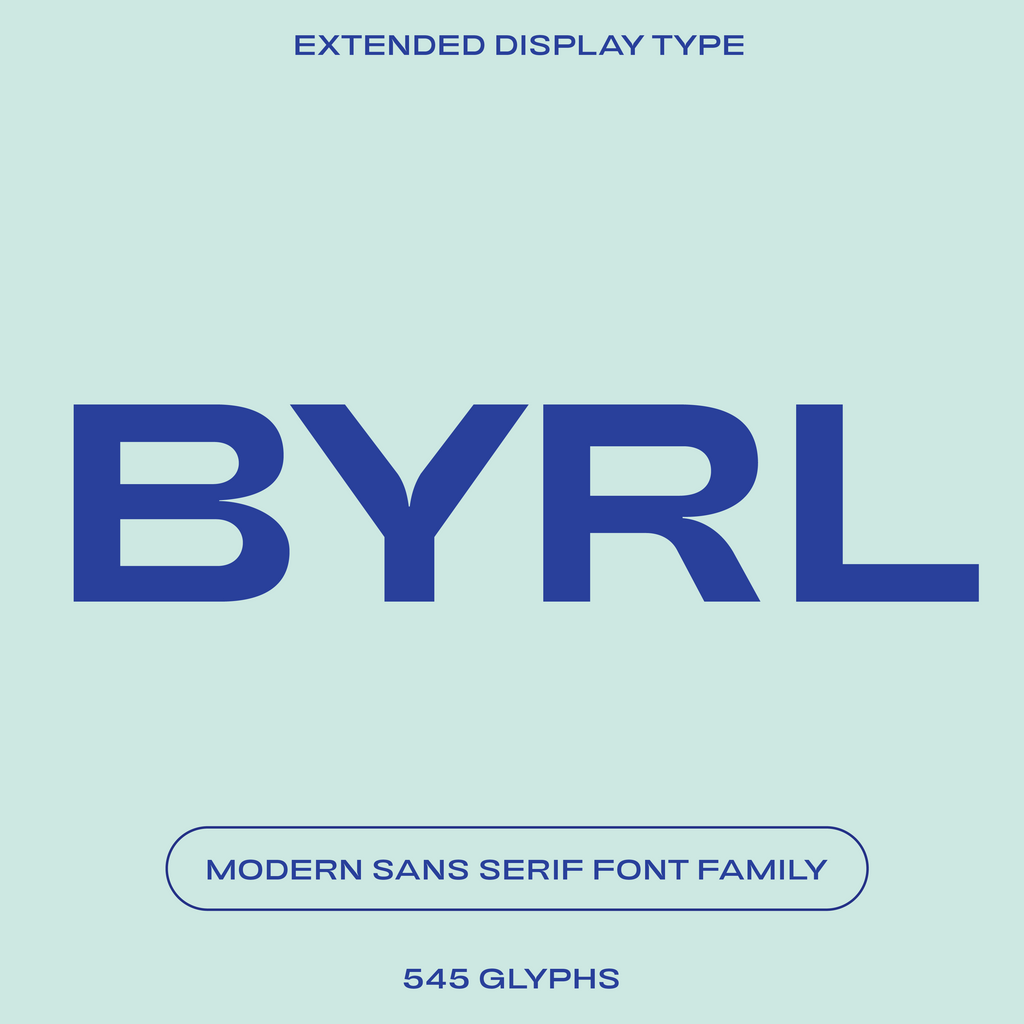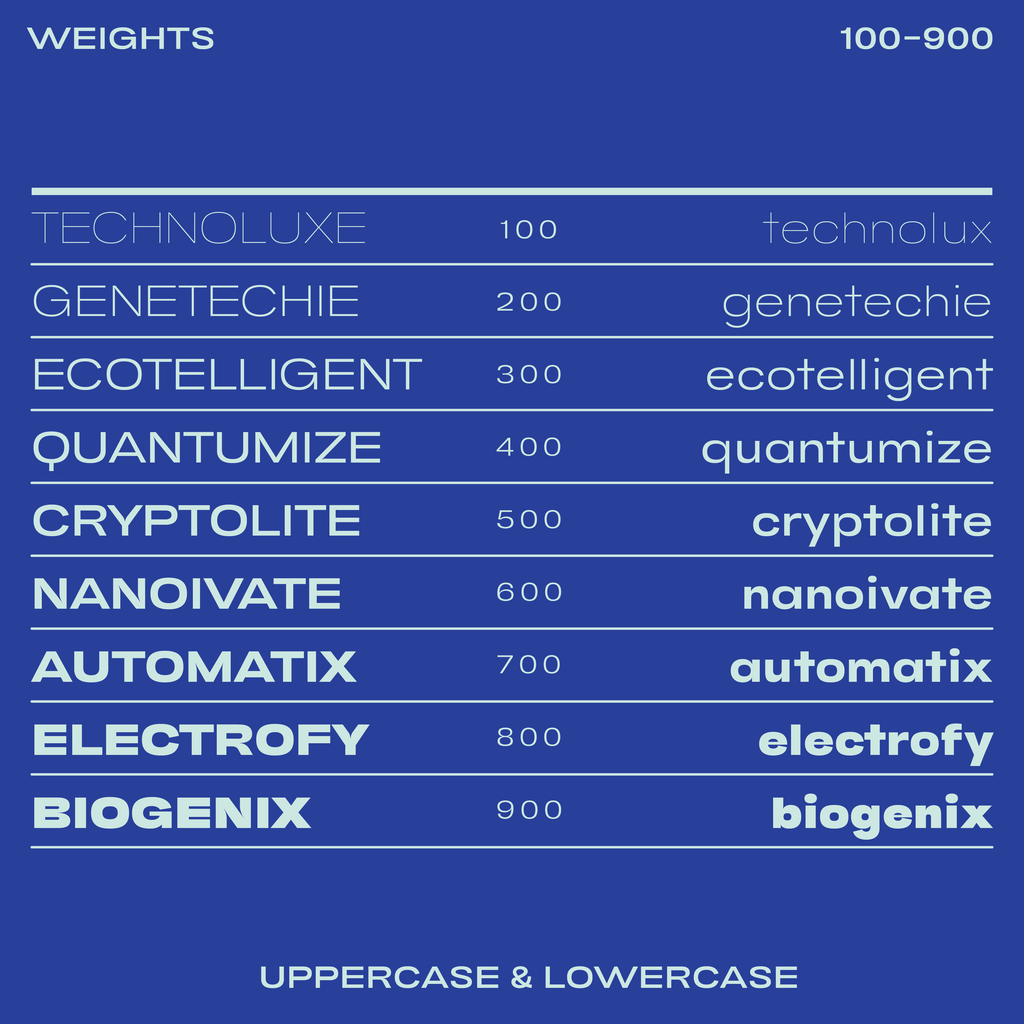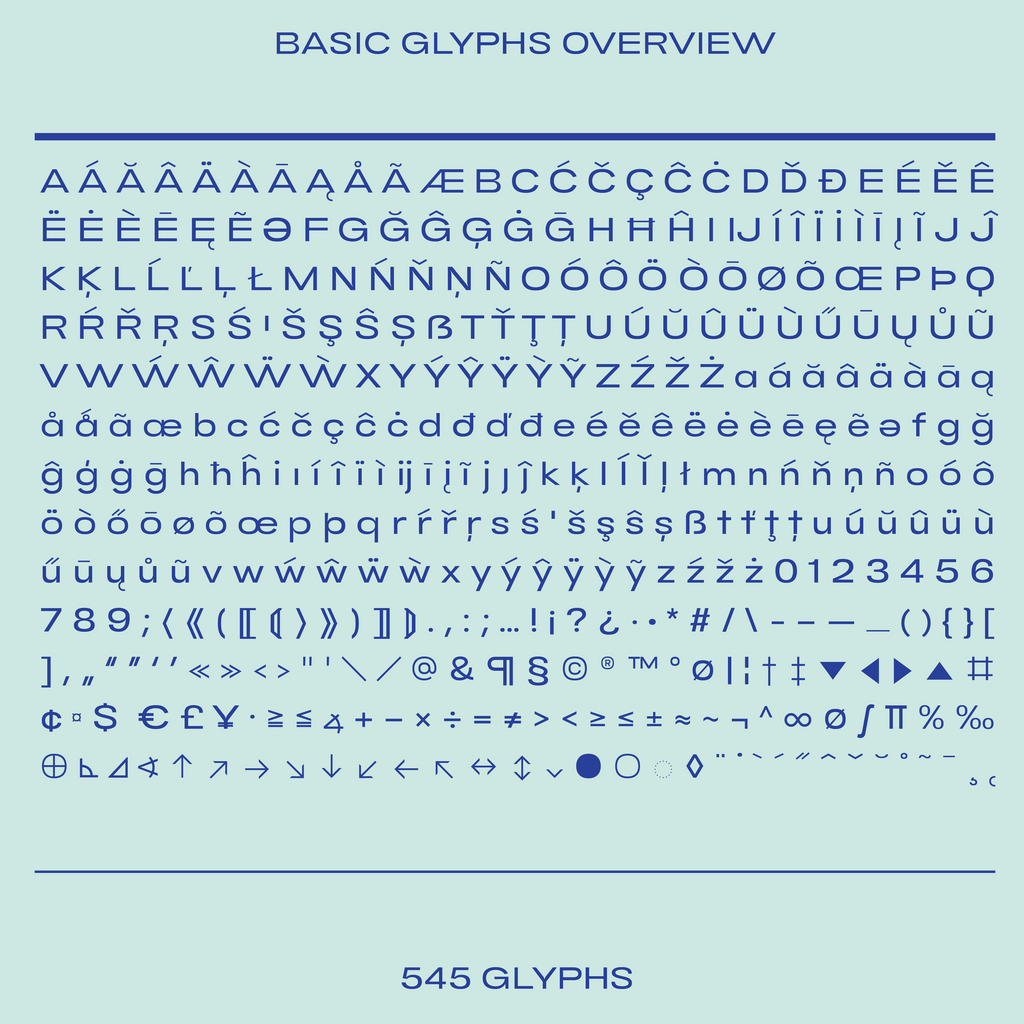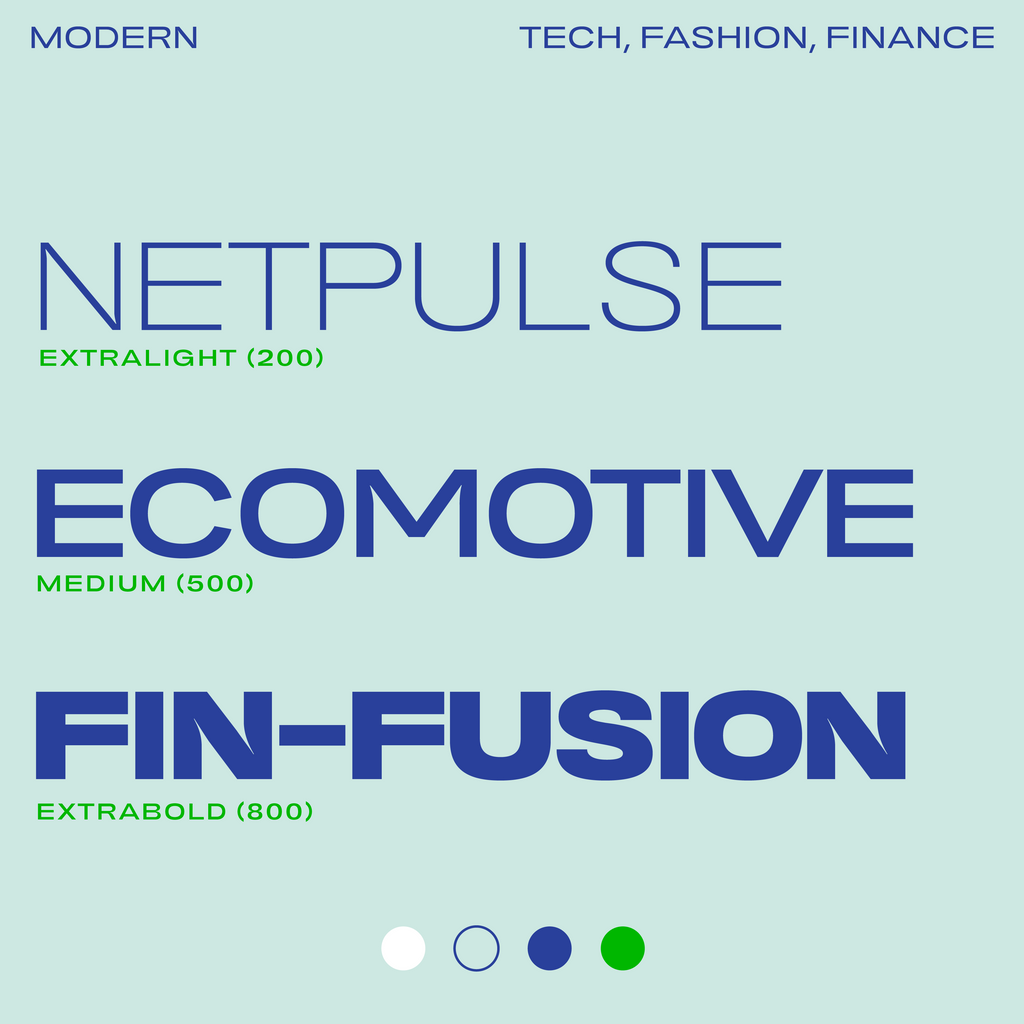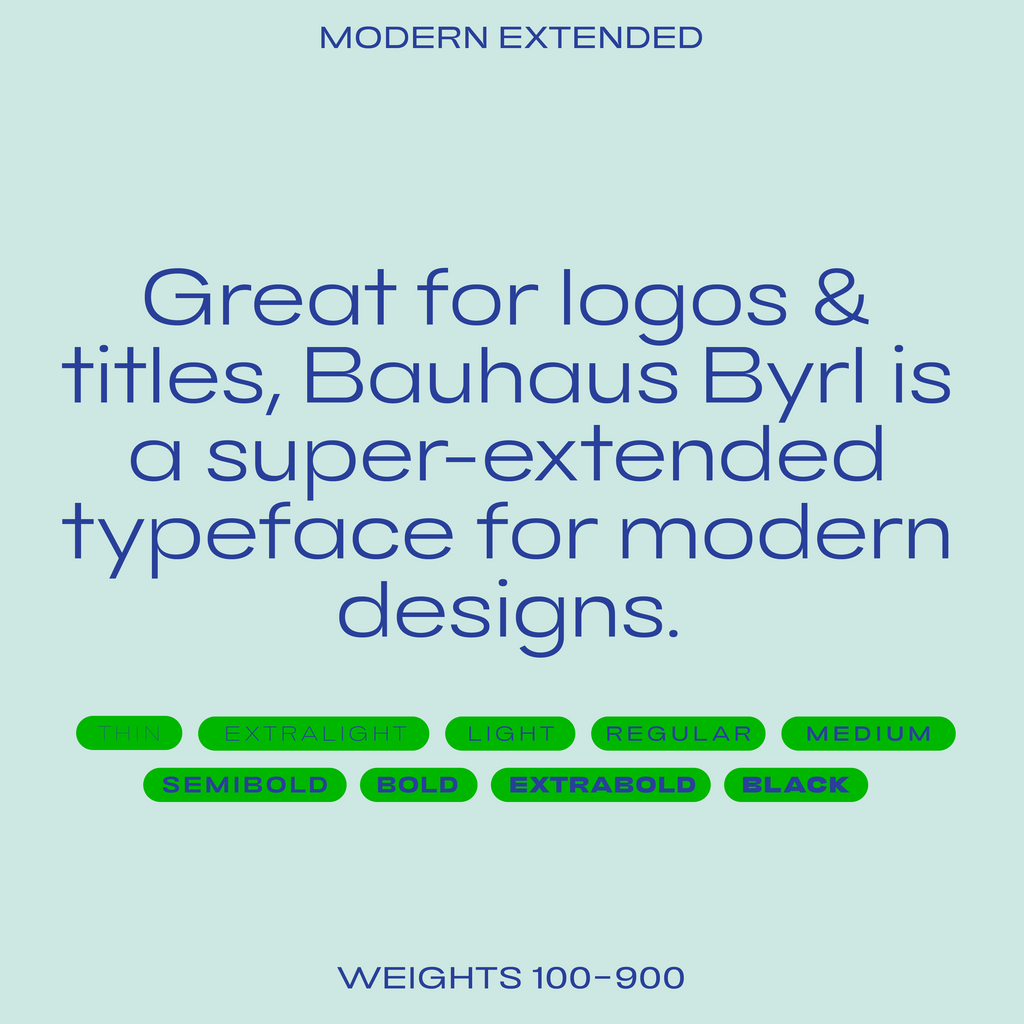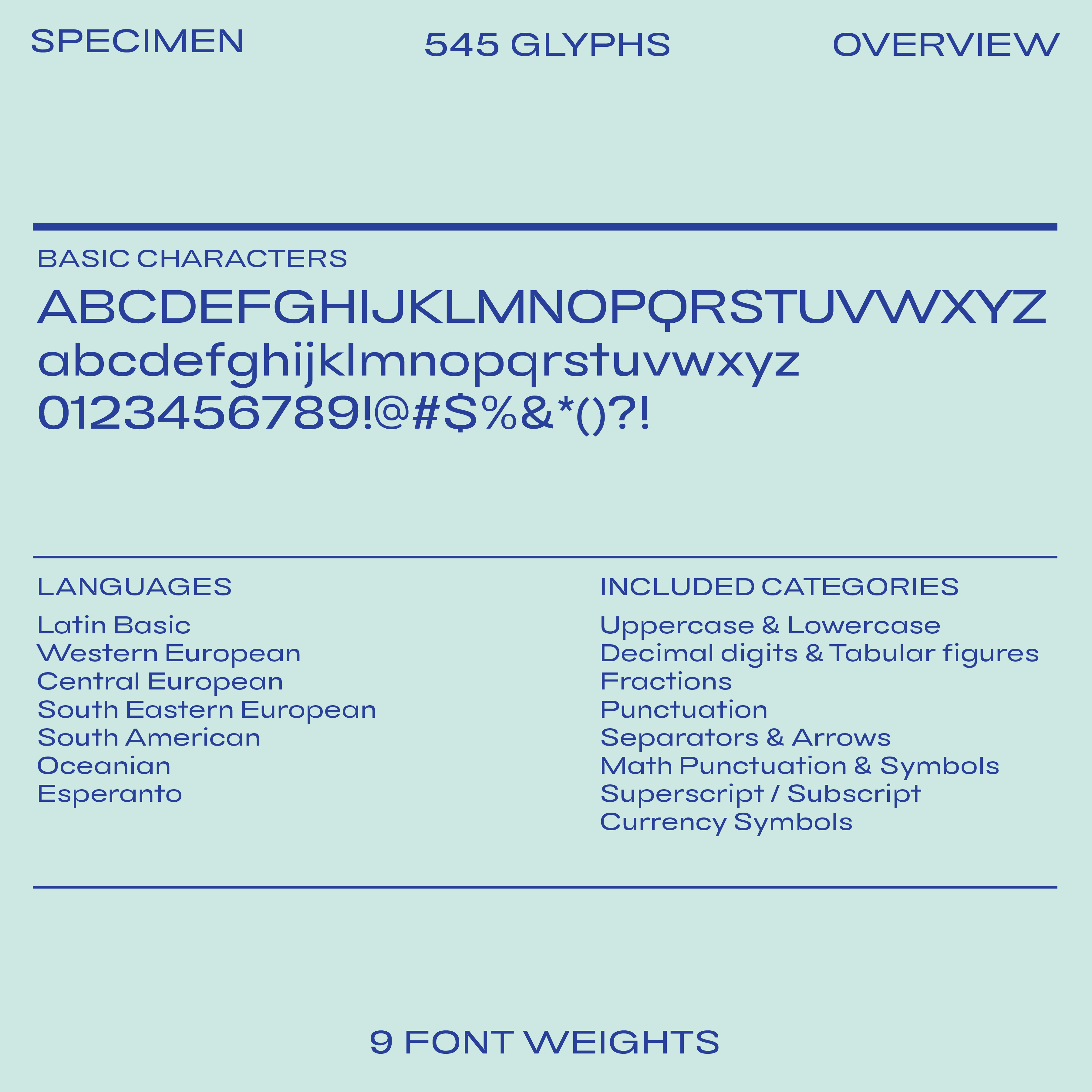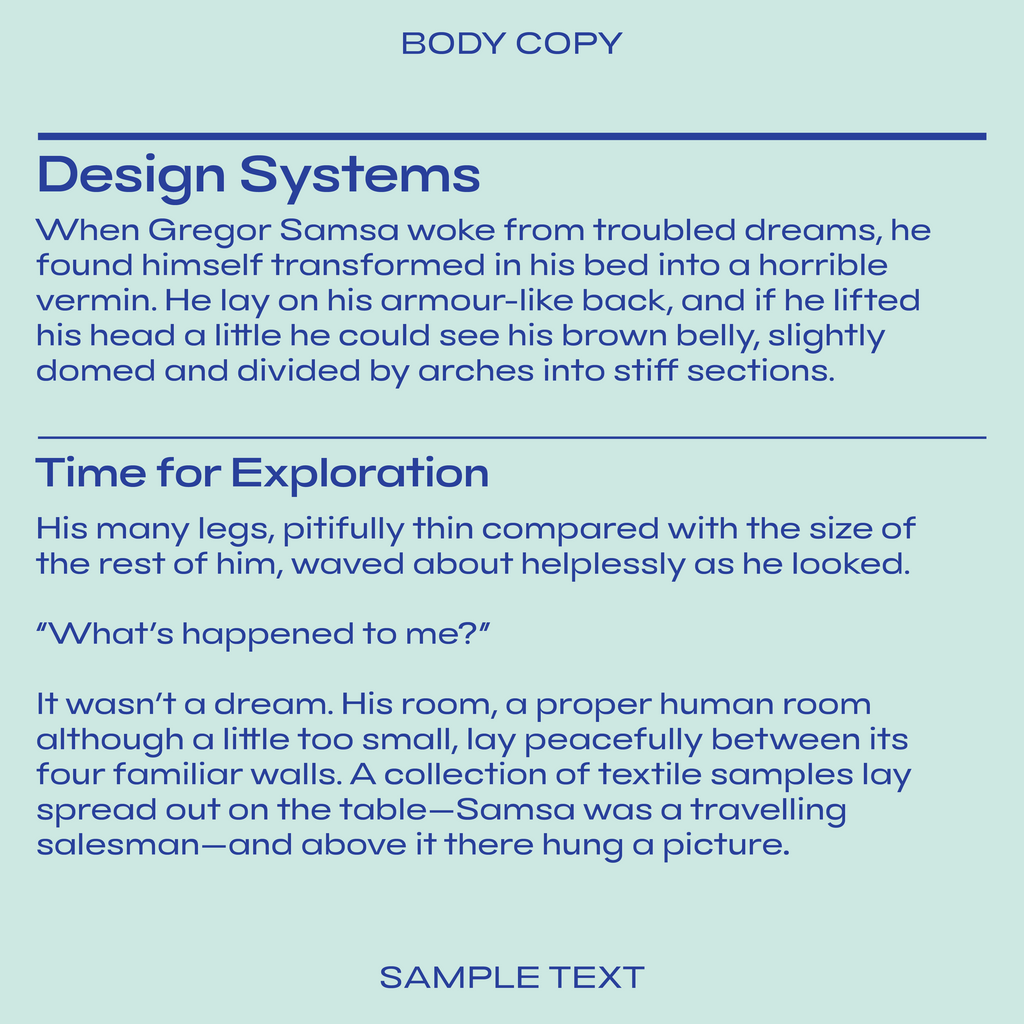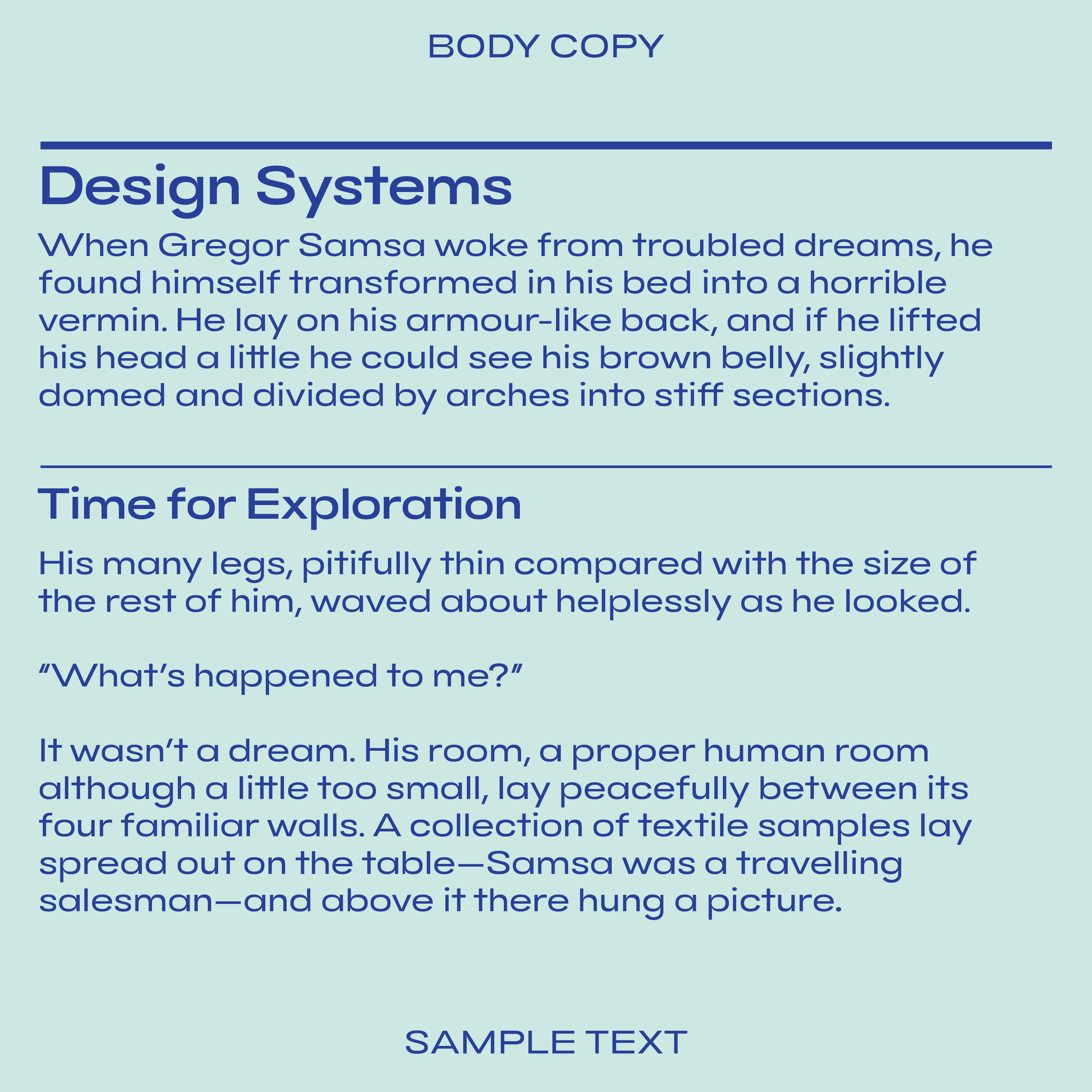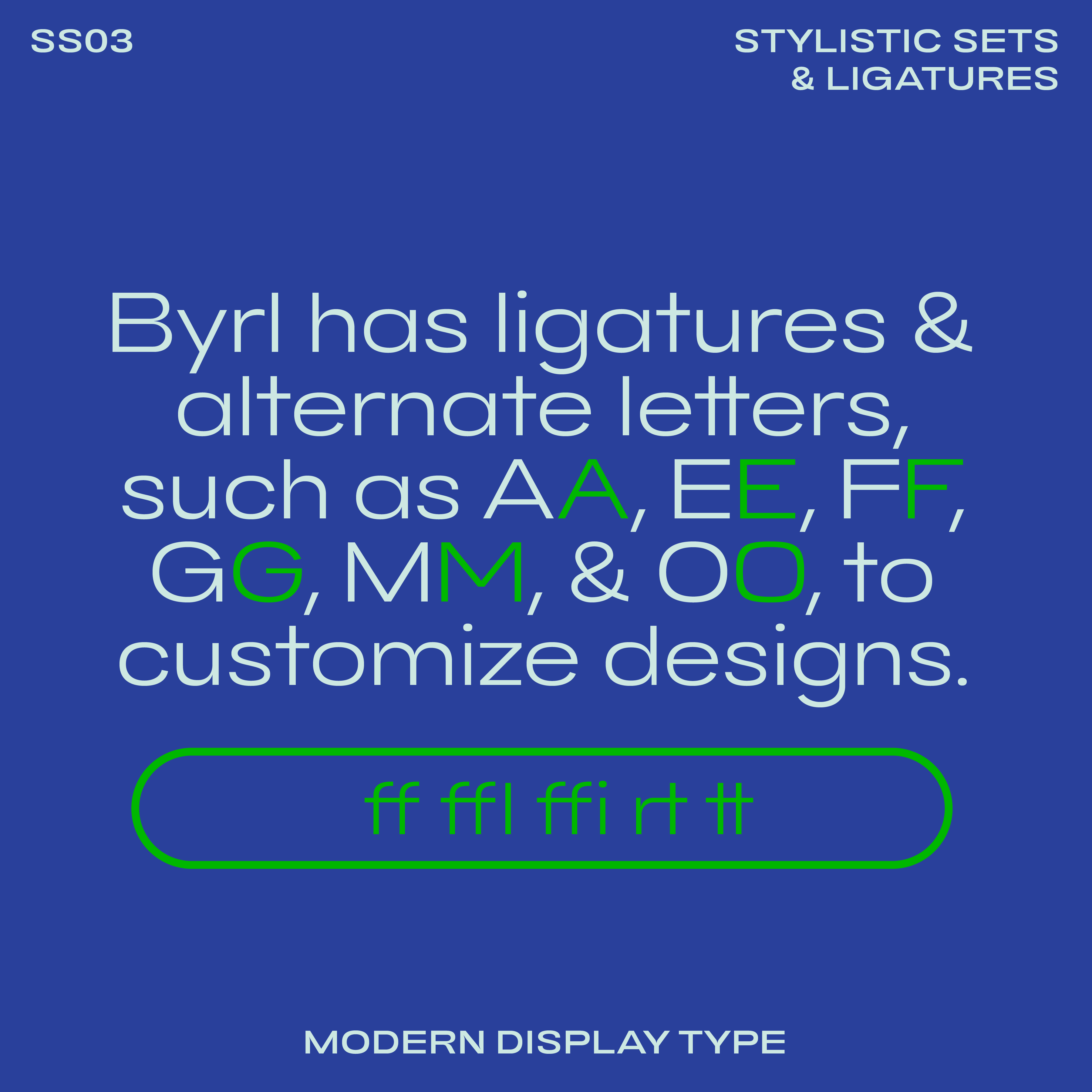
Wide geometric capitals, an o wider than it is tall, and ascenders that stop at cap height.
In Thin a title looks light and airy; toward Black a single word fills the line. Logos and headings for tech, fashion and sports brands.
Wide and modern, with ink traps.
Great for logos, titles and text snippets, Byrl is an extended typeface for modern designs. Byrl has many ligatures & alternate letters, such as 2 options for A, E, F, G, M, and O, to customize designs. Available in 9 font weights and as a full family. Full family includes variable font.
As a wide sans-serif, Byrl fits tech products, magazine mastheads, fashion labels and minimal medical branding.
Byrl · variable, 100 to 900
Wide geometric capitals, an o wider than it is tall, and ascenders that stop at cap height.
In Thin a title looks light and airy; toward Black a single word fills the line. Logos and headings for tech, fashion and sports brands.